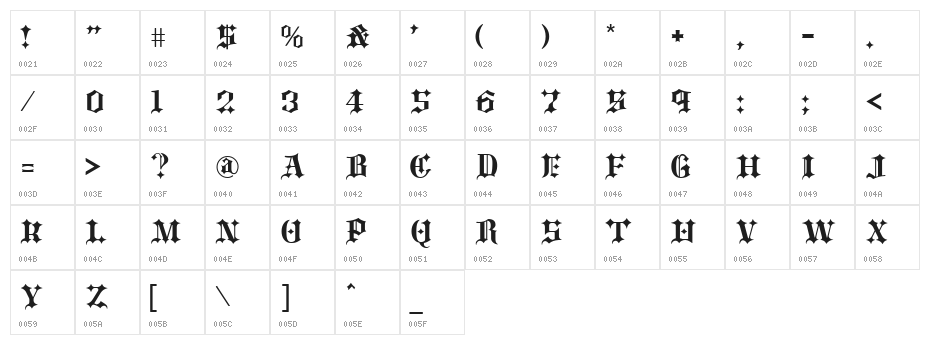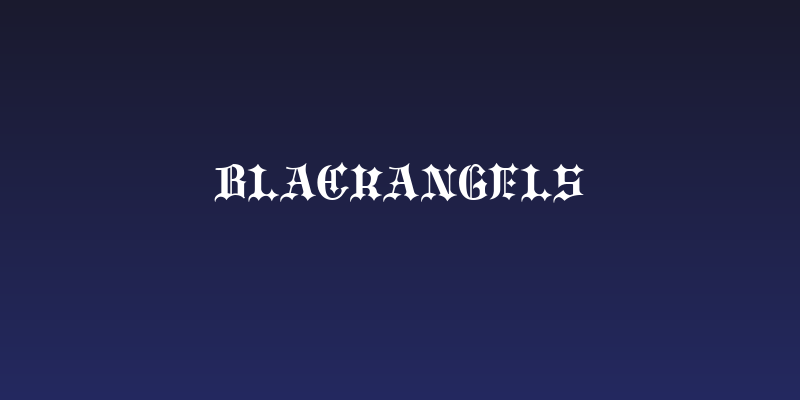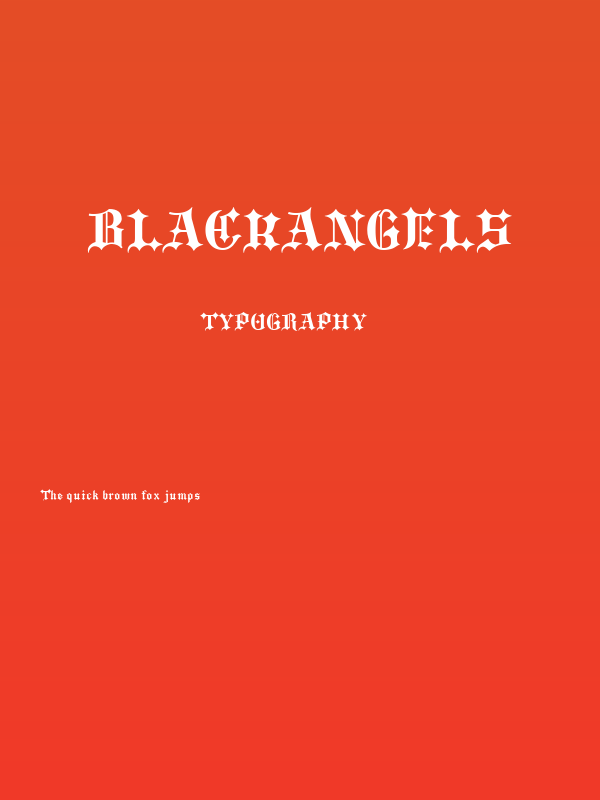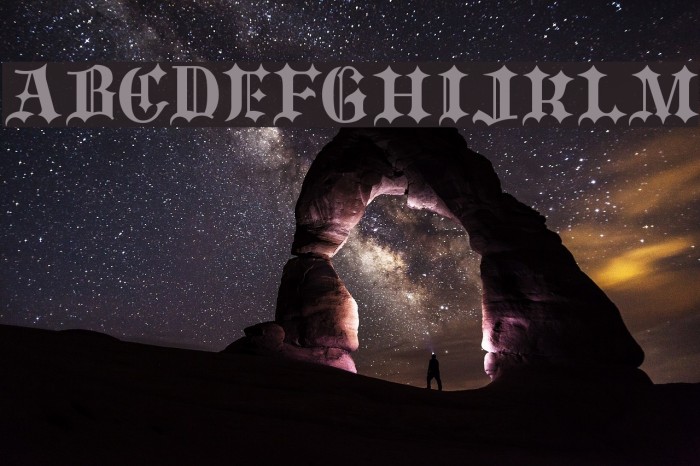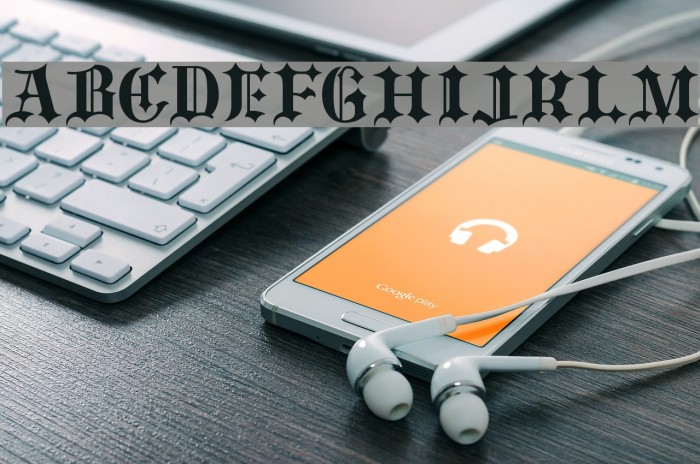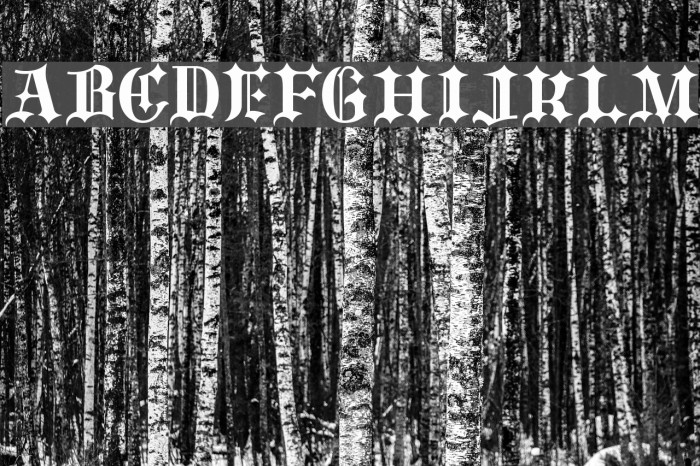
BlackAngels Font
BlackAngels Description
This font exhibits a bold and dramatic blackletter style, characterized by its sharp, angular lines and intricate detailing. The uppercase letters are particularly ornate, with pointed serifs and a gothic flair that evokes a sense of historical elegance. The lowercase letters maintain the same intricate design, ensuring consistency throughout the typeface. Numbers and special characters are equally stylized, making them suitable for thematic designs. The overall appearance is both striking and authoritative, ideal for projects that require a strong visual impact.
| Overall Style | Gothic, Decorative |
| Proposed Projects | Ideal for use in branding, posters, album covers, and any design that requires a gothic or medieval aesthetic. |